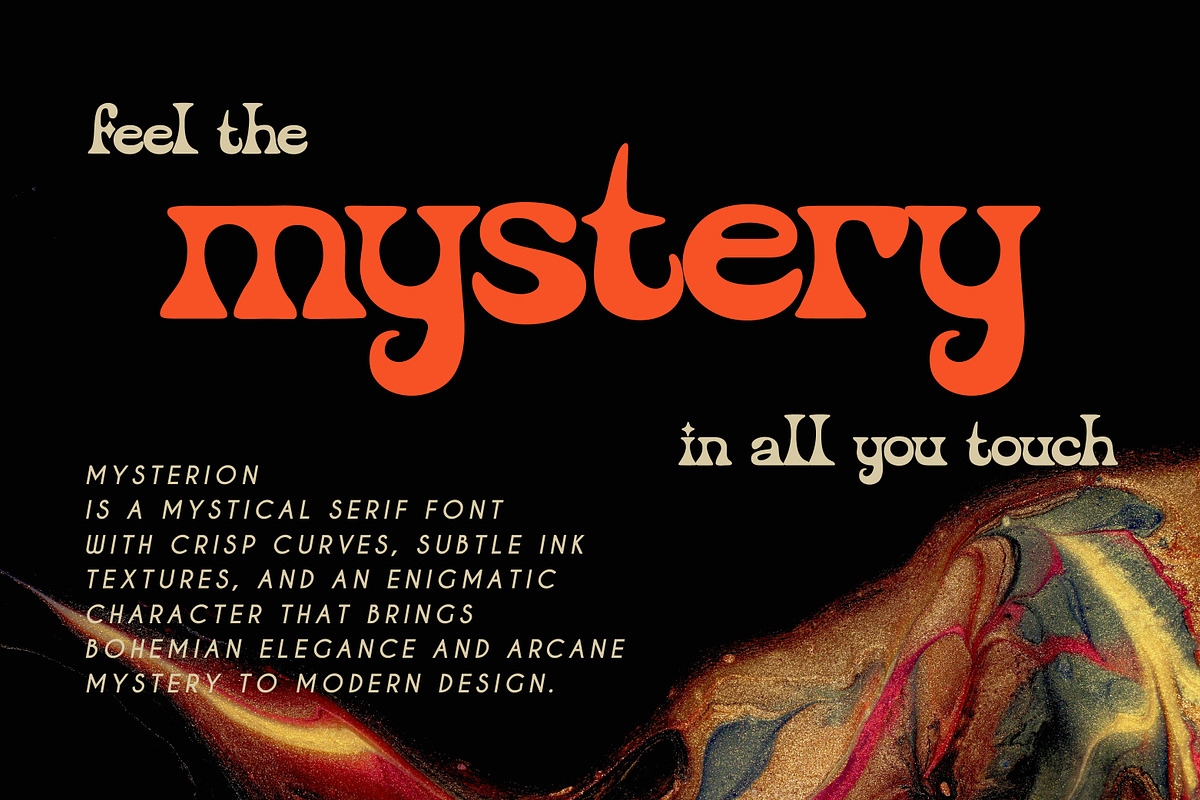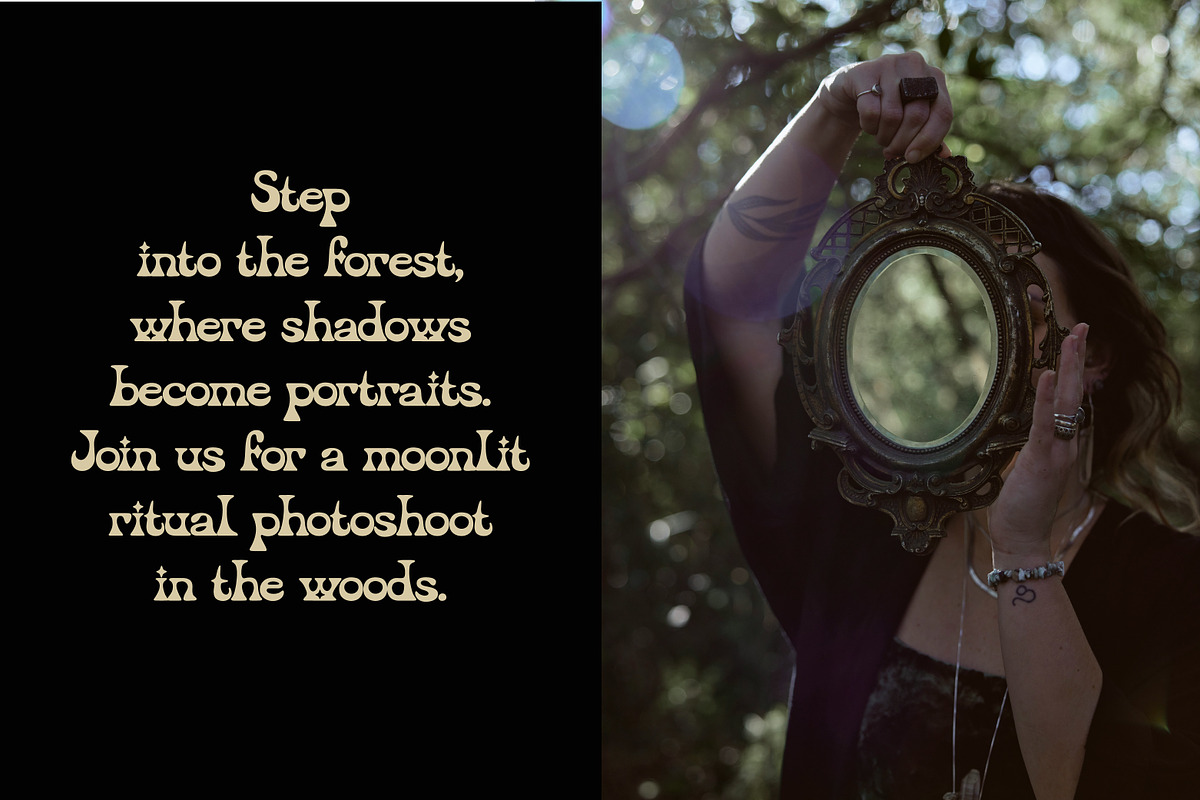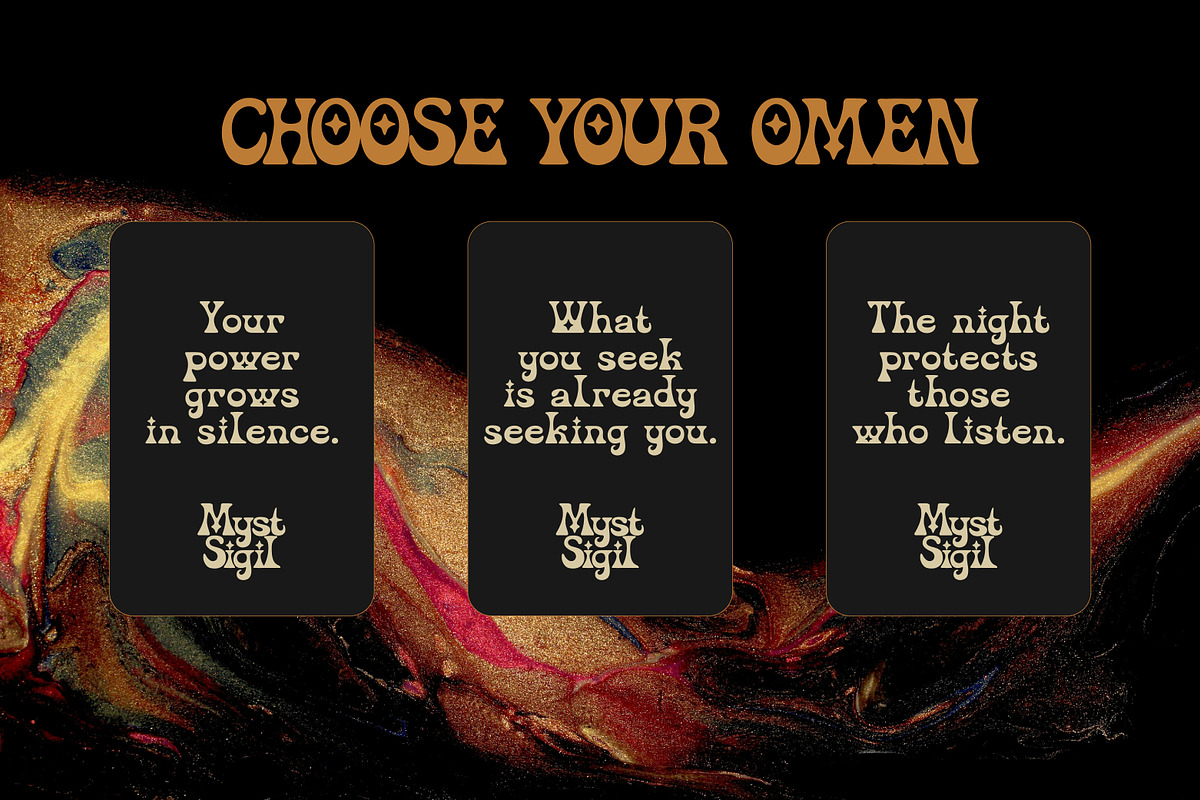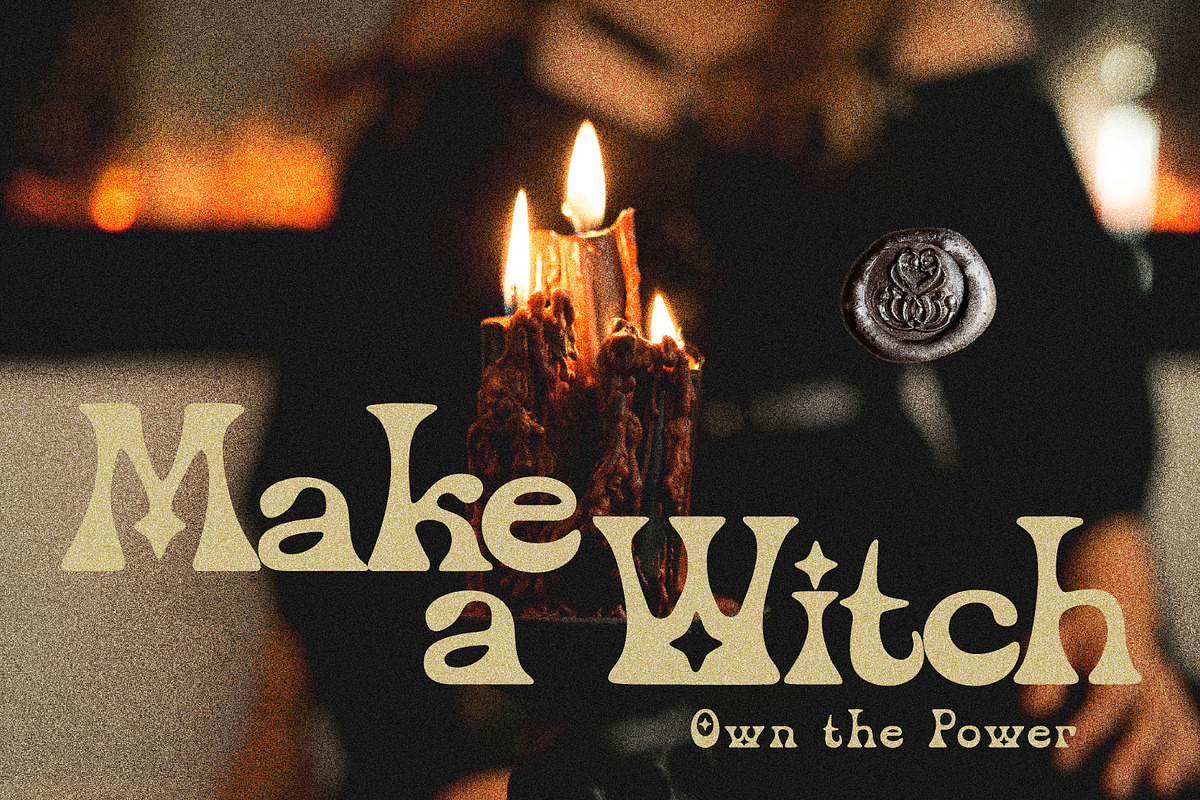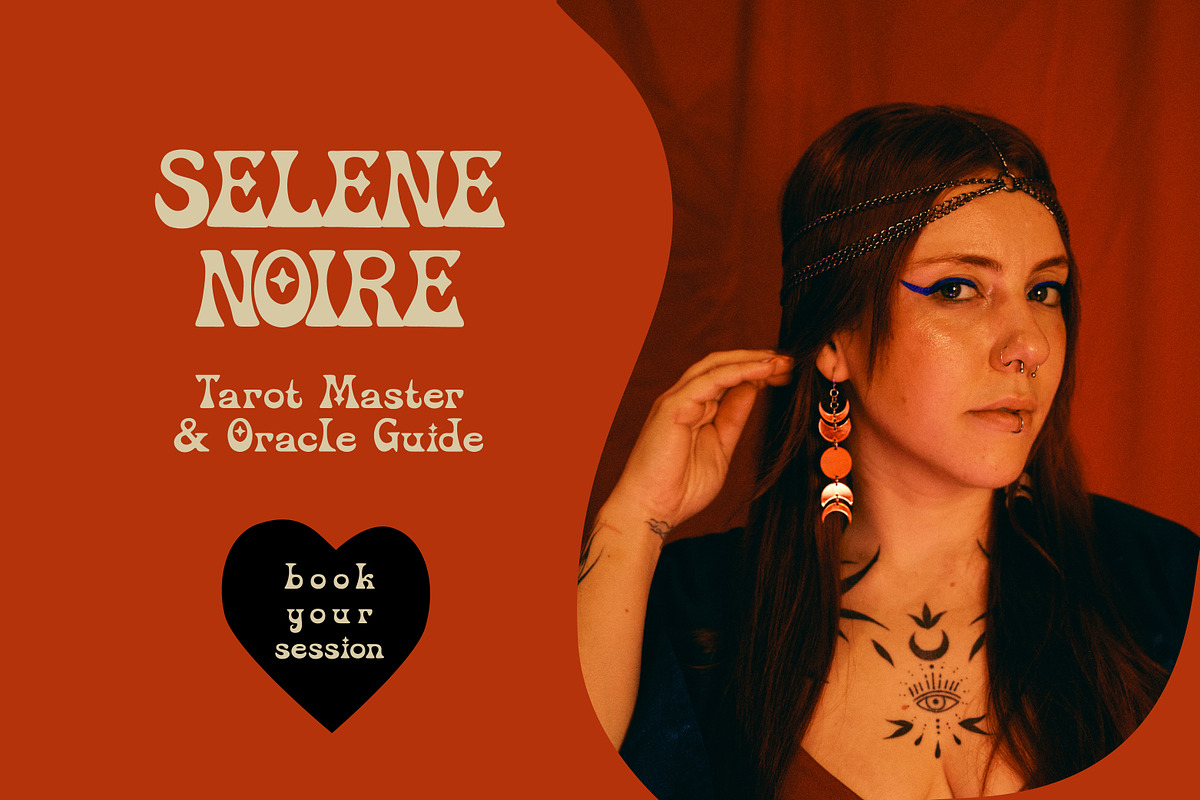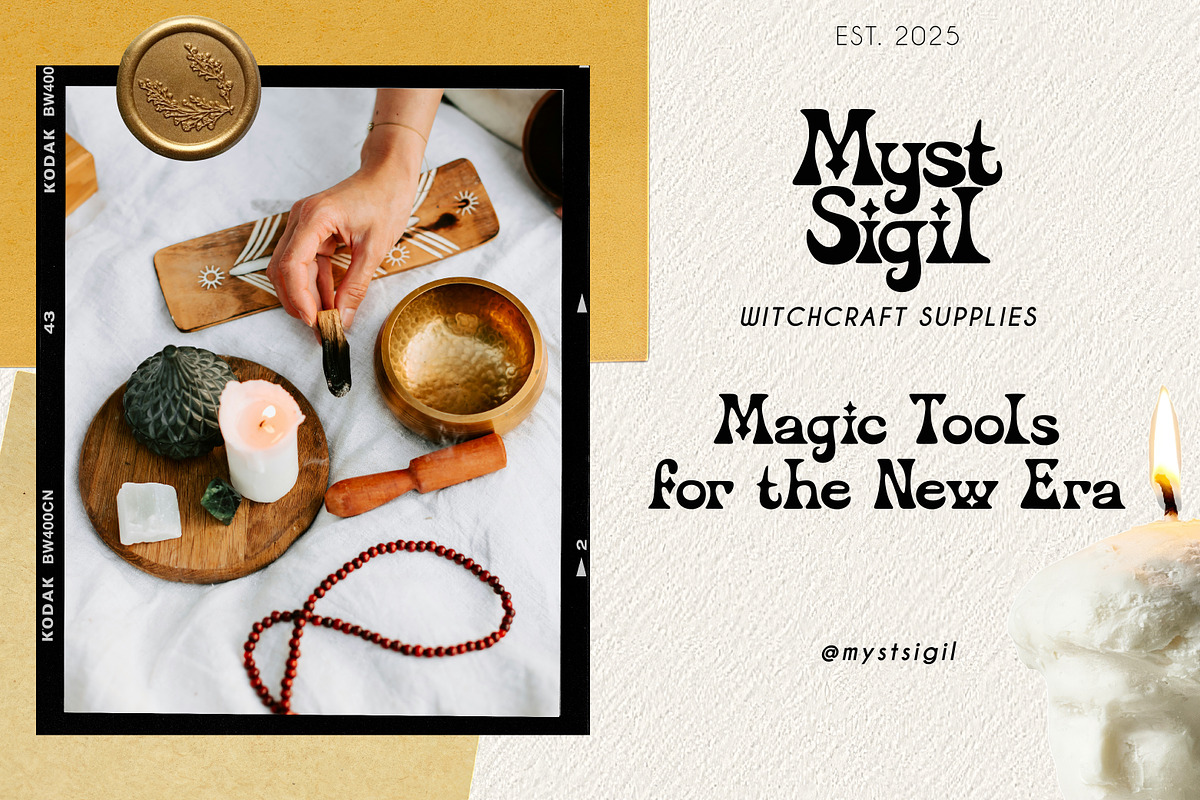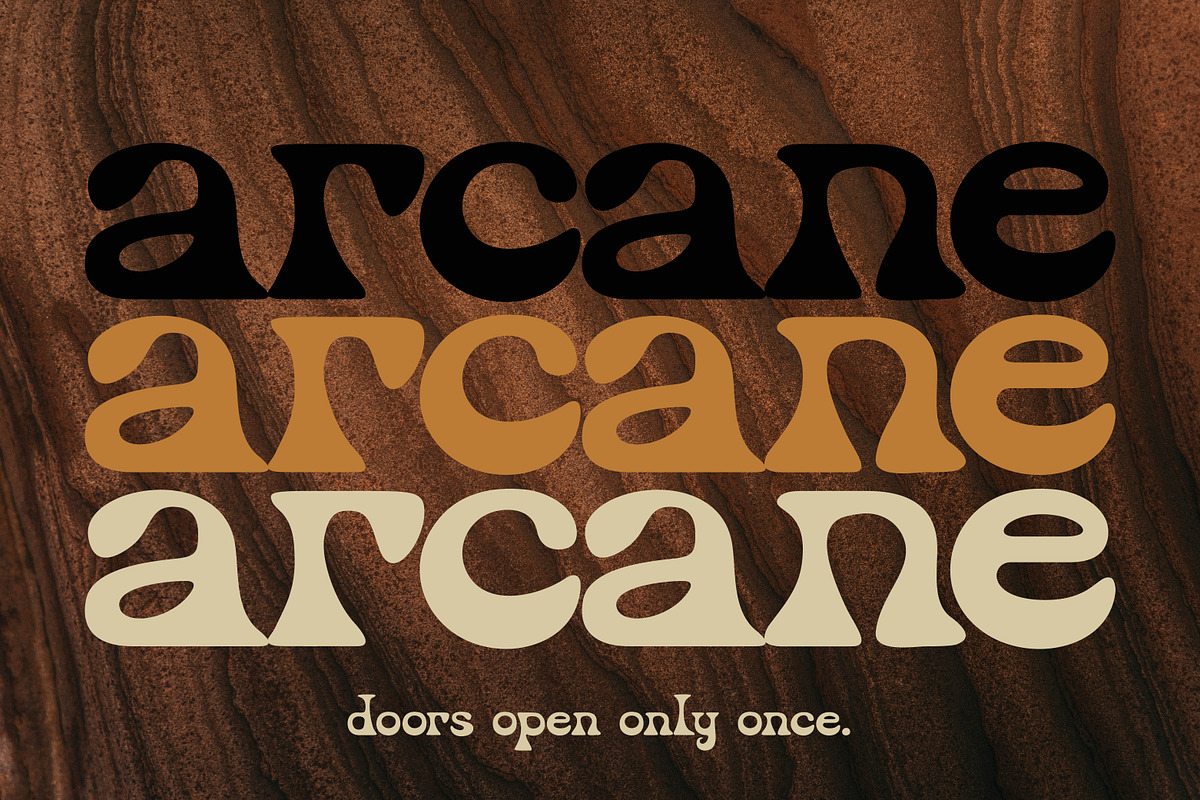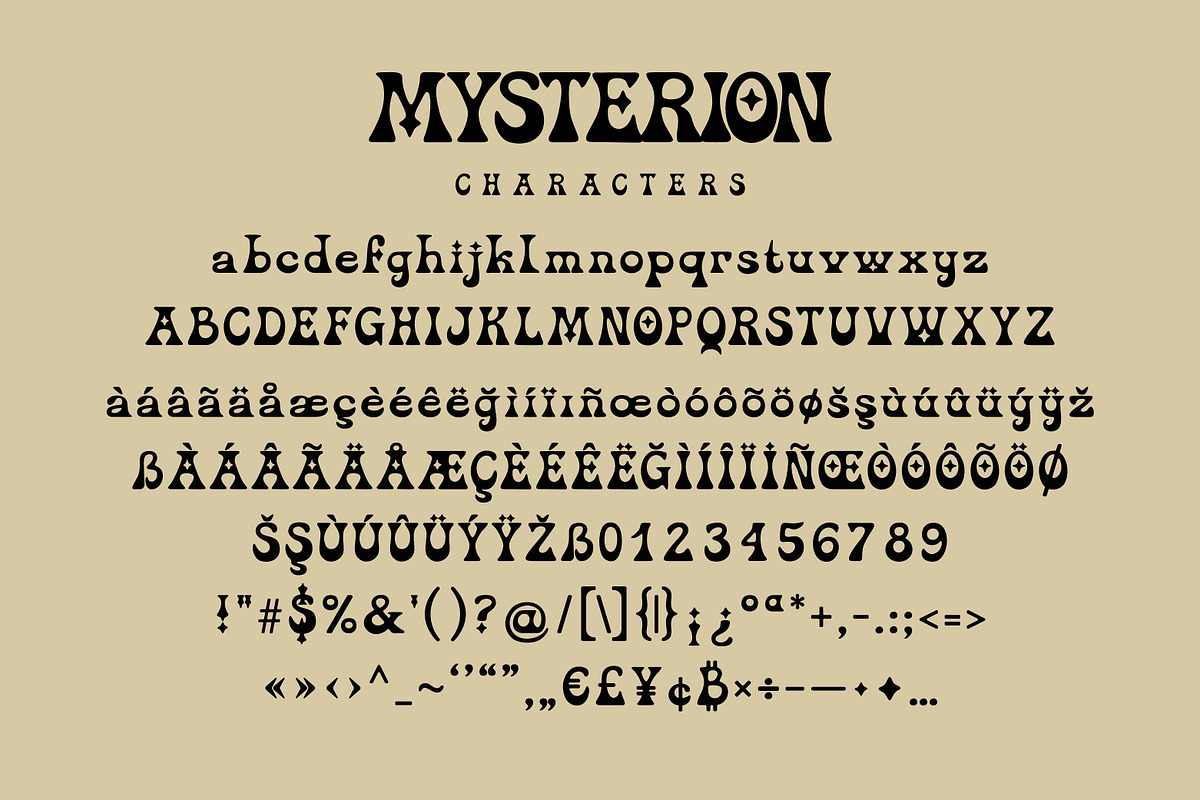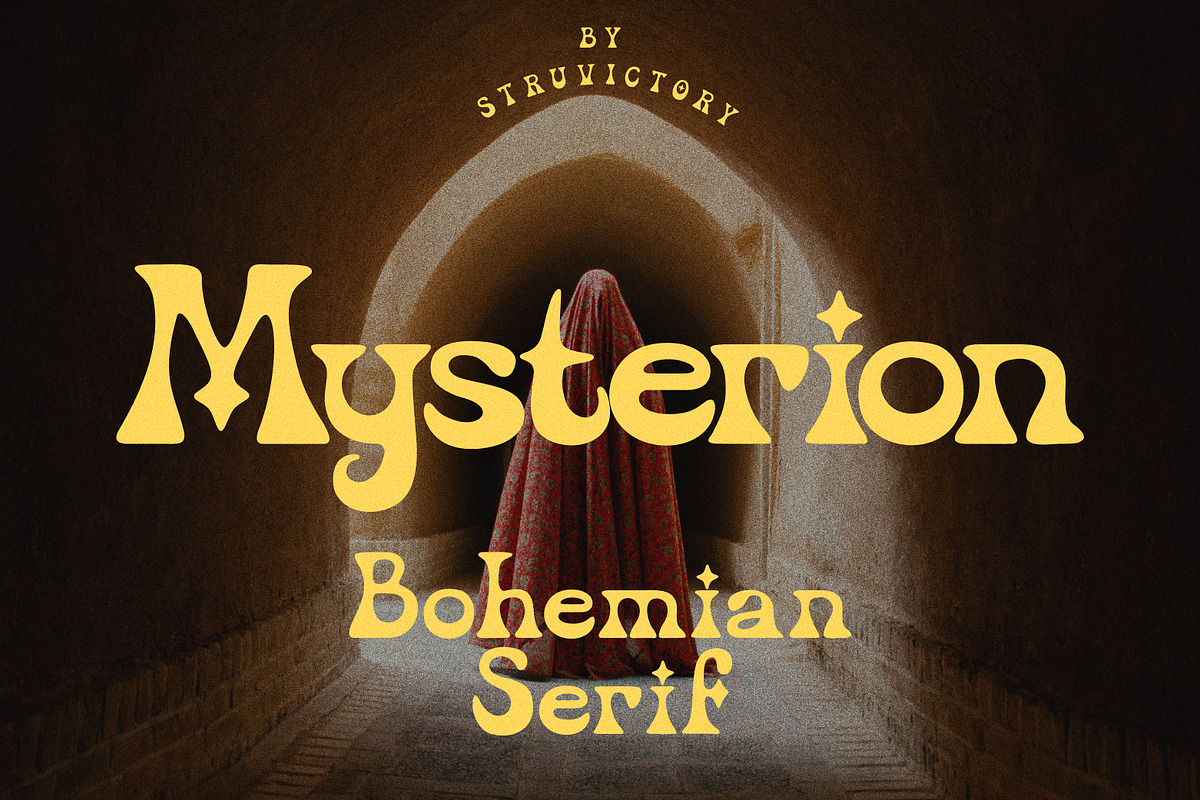
Mysterion Bohemian Mystical Serif
Mysterion is a bohemian mystical serif that blends modern elegance with occult-inspired charm. Its flowing curves and unique letterforms feel both arcane and approachable, making it perfect for tarot cards, celestial branding, mysterious posters, and spellbinding social media graphics. Designed to capture the atmosphere of ritual and wonder, this typeface is ideal for projects with witchy vibes, bohemian aesthetics, or spiritual storytelling. With its timeless yet modern look, Mysterion brings a touch of mystery and magic to every word. The font supports the most popular latin-based languages.